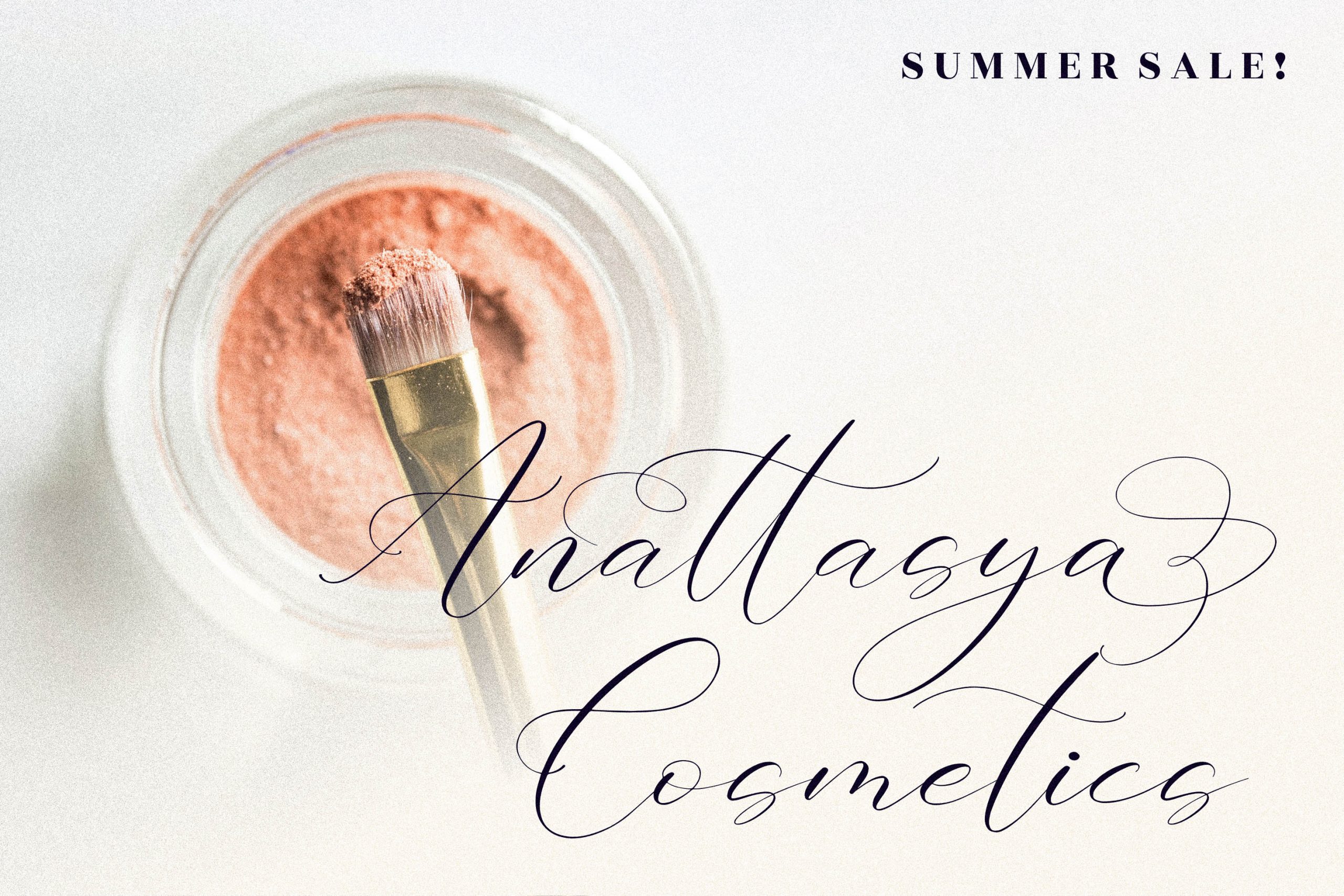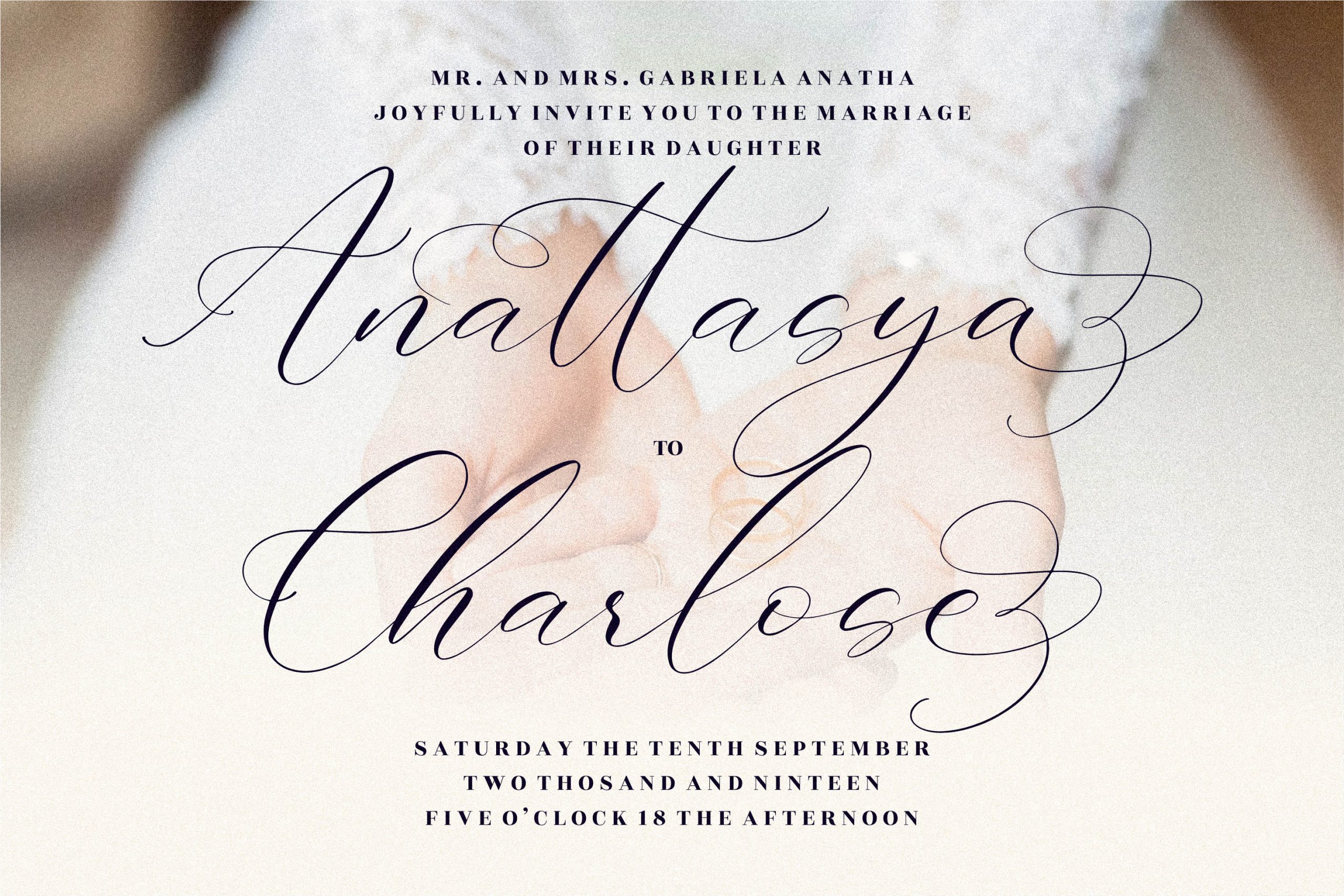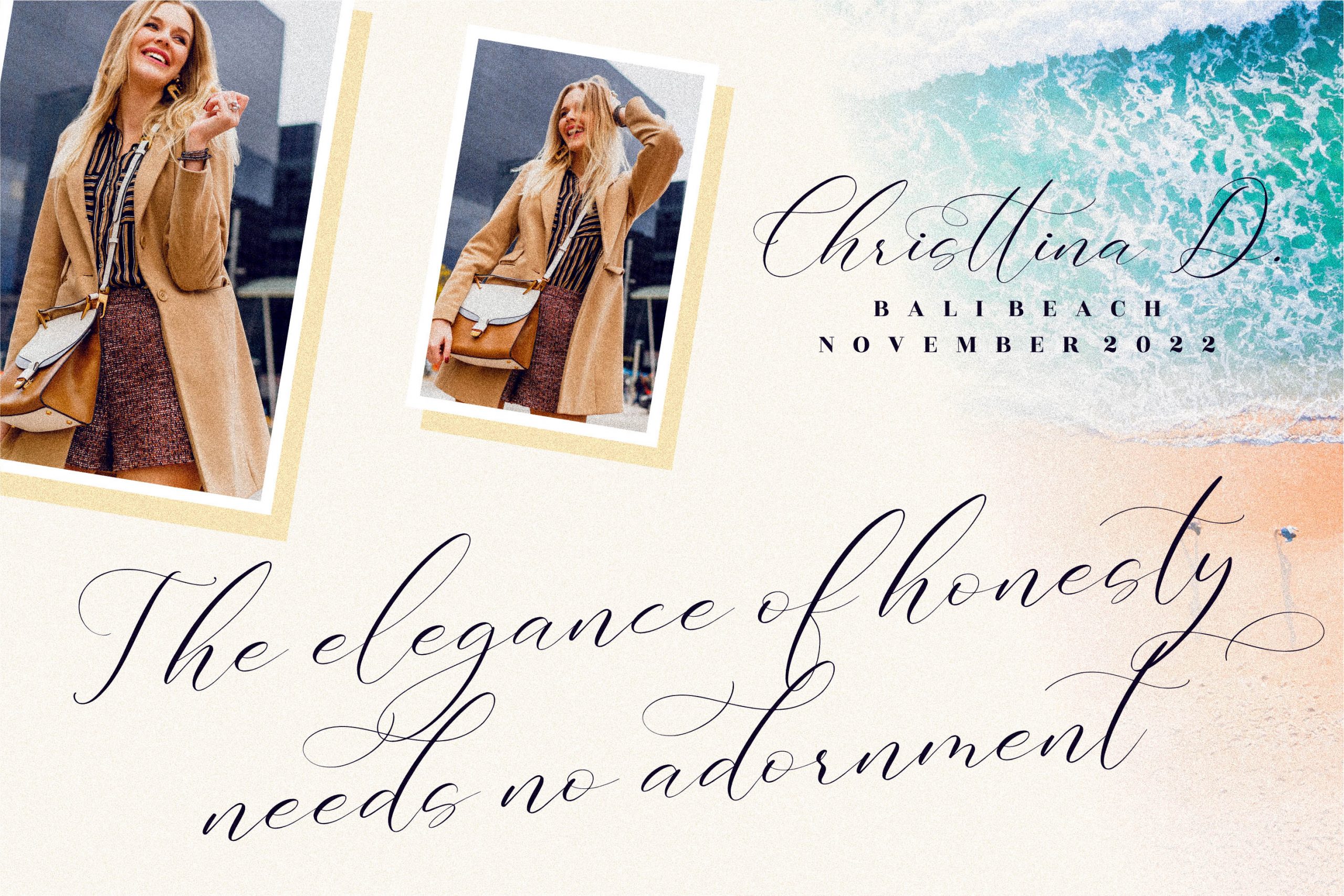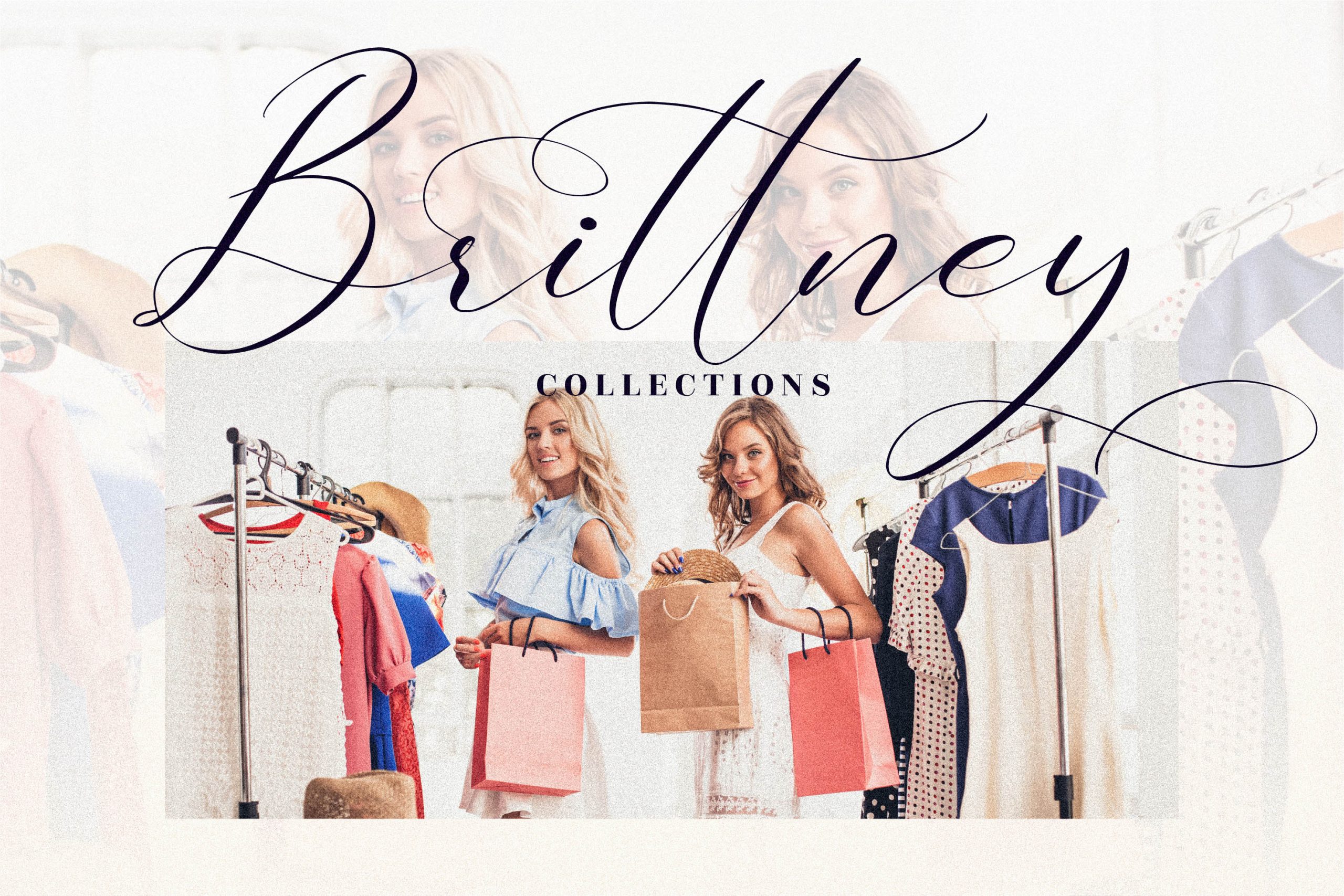
Gashina Lattiva Font
Gashina Lattiva Calligraphy Font
This is a romantic calligraphy font, suitable for any projects such as: logos, branding projects, homeware designs, product packaging, mugs, quotes, posters, shopping bags, t-shirts, book covers, name card, invitation cards, greeting cards, label, photography, watermark, special events, and all your other lovely projects that need a beautiful script taste.